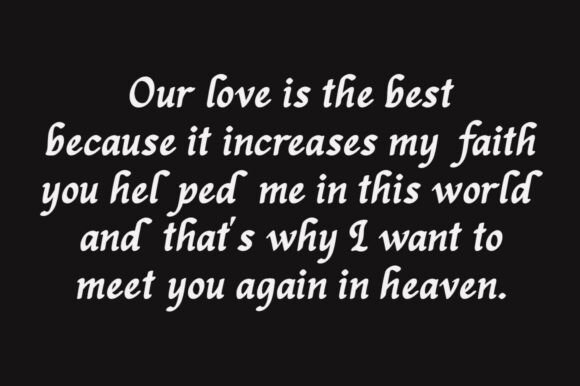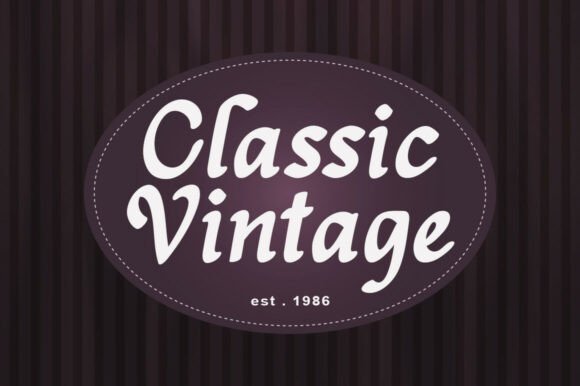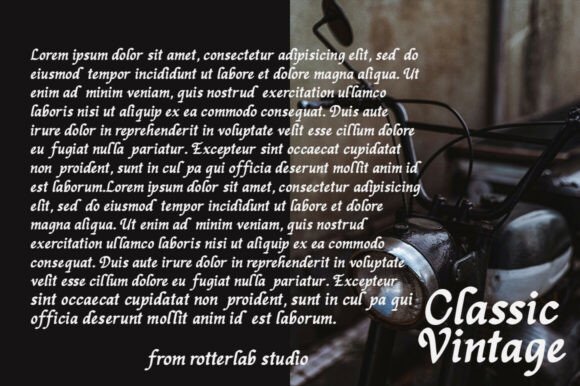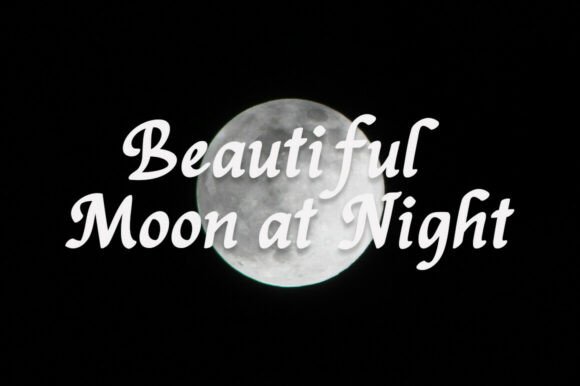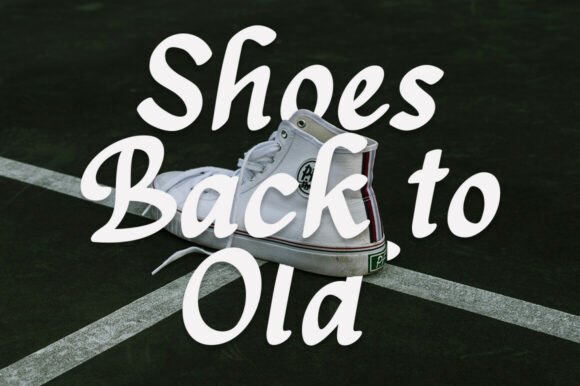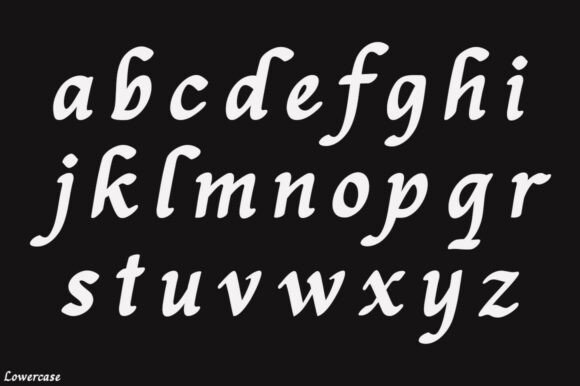
Introduction to Rackham Font
As a designer, there’s nothing quite like the thrill of discovering a new font that perfectly captures the essence of your creative vision. For me, it was the moment I stumbled upon the Rackham Font, with its soft, flowing curves and vintage charm. I was working on a project that required a classic, elegant feel, and this font was the perfect match.
The Rackham Font is a masterclass in timeless design, with its natural handwritten characters and strong vintage touch. Whether you’re working on a branding project, product packaging, or a poster, this font is sure to add a touch of sophistication and class to your design. And the best part? It’s available for free download, making it an invaluable resource for designers on a budget.
With its high-quality design and versatility, the Rackham Font is an essential tool for any creative project. Whether you’re working on a large-scale design or a small, personal project, this font is sure to deliver a professional, polished look that’s sure to impress. So why settle for anything less when you can have the timeless beauty of the Rackham Font on your side?
Key Features of Rackham Font
- High-quality, elegant design suitable for creative projects and design resources.
- Supports a wide range of languages and character sets, making it a versatile design resource.
- Designed to be highly legible, even at small font sizes, making it perfect for body text and headings.
Honest Review: Rackham Font
As a designer, I’m always on the lookout for high-quality fonts that can elevate my creative projects. Recently, I stumbled upon the Rackham Font, and I’m excited to share my honest review with you.
- High-quality design: The Rackham Font boasts a beautiful, elegant design that’s perfect for creative projects.
- Limited style options: While the font is elegant, it’s a bit limited in terms of style options, which may not be suitable for all design projects.
- Not ideal for bold text: The font may not be the best choice for bold text, as it can become a bit too delicate.
Overall, I’m impressed with the Rackham Font’s quality and versatility. It’s a great resource for designers working on creative projects, and its free download makes it an excellent choice for those on a budget. However, it’s essential to consider its limitations when choosing a font for your project.
Tips for Getting the Most Out of Rackham Font
To get the most out of Rackham Font, experiment with different font sizes, colors, and combinations. You can also pair it with other fonts to create a unique and eye-catching design.
Rackham Font is perfect for a wide range of creative projects, including invitations, posters, business cards, and more. Its elegant and sophisticated design makes it an ideal choice for any project that requires a touch of luxury.